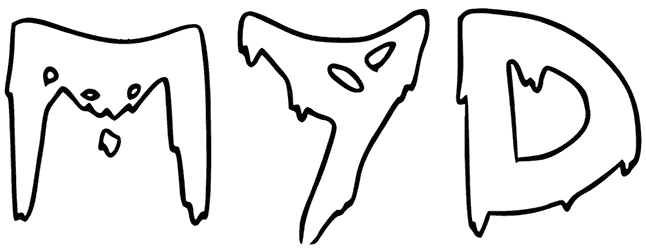
Myd V2 Font
Like other horror fonts, Myd V2 makes it simple to convey your fierce, playful feelings through your artwork. It’s a great option for creating eerie flyers, posters, cartoons, and comic books for Halloween and costume parties.
Your work will be noticed thanks to the themed appearance of this slime font. Even though it lacks lowercase letters and numerical, this Halloween font is unlike anything else you’ve seen before, so give it a try and see for yourself!
Man, ya dad is now a font!